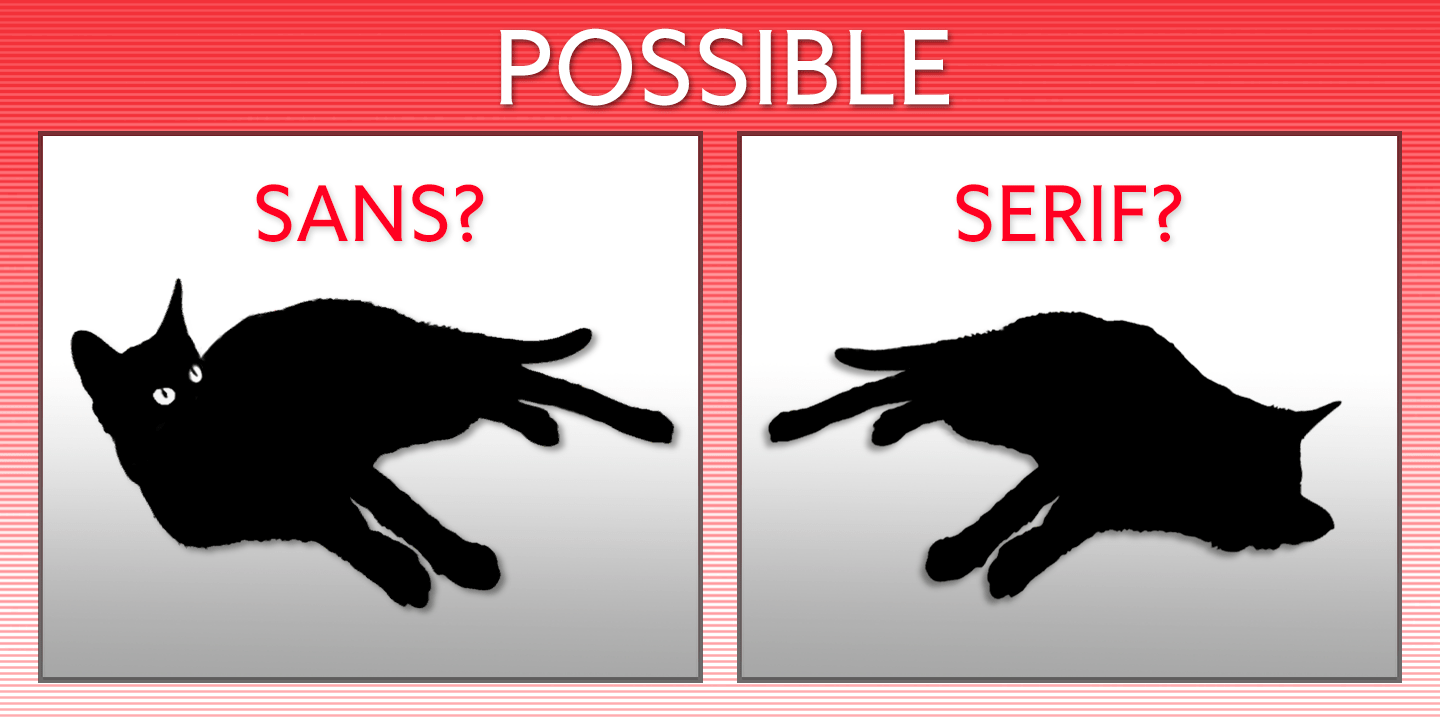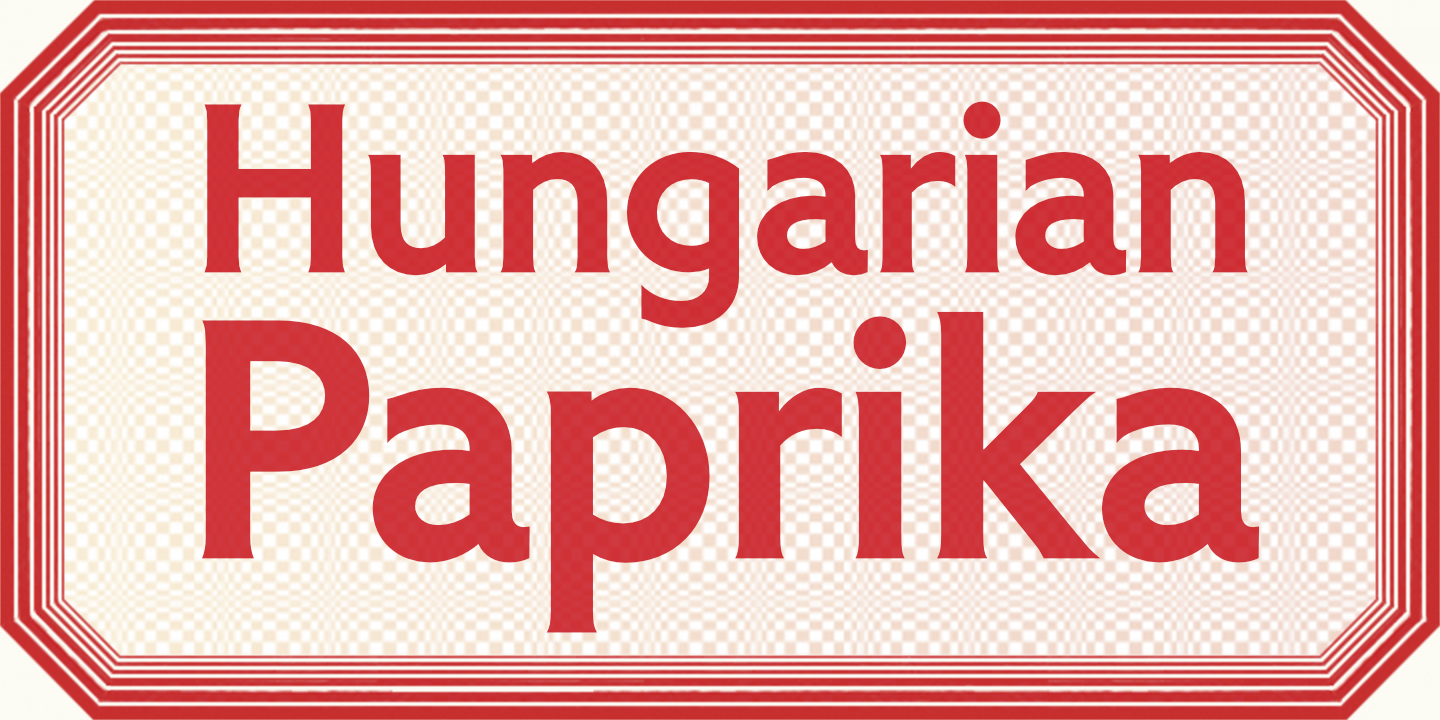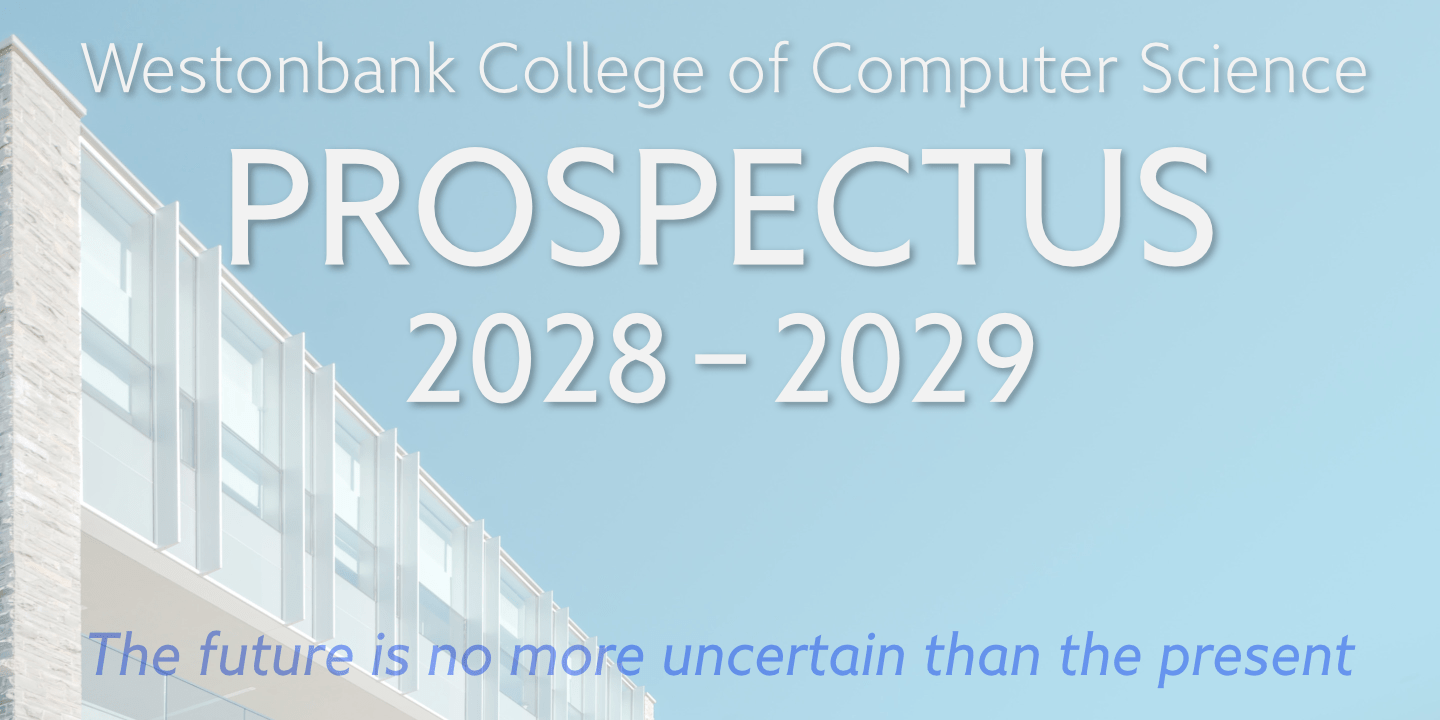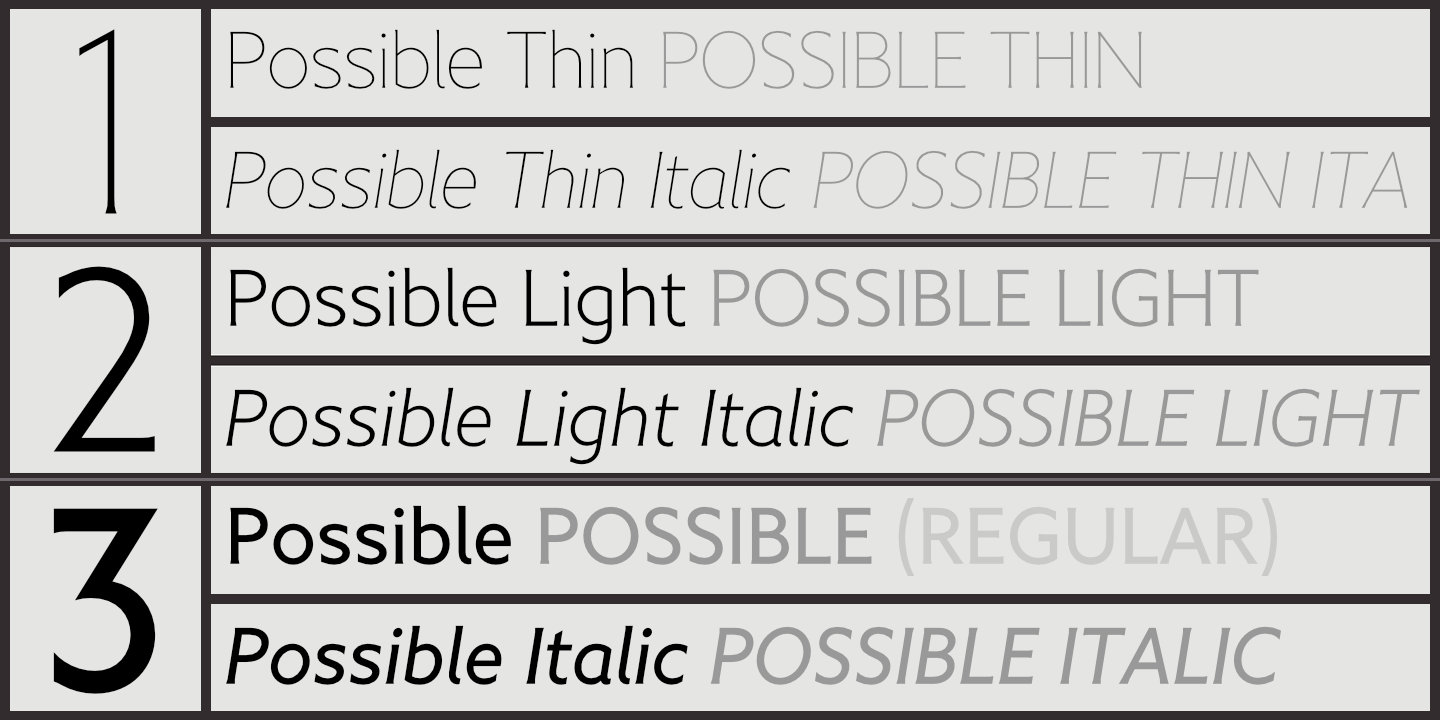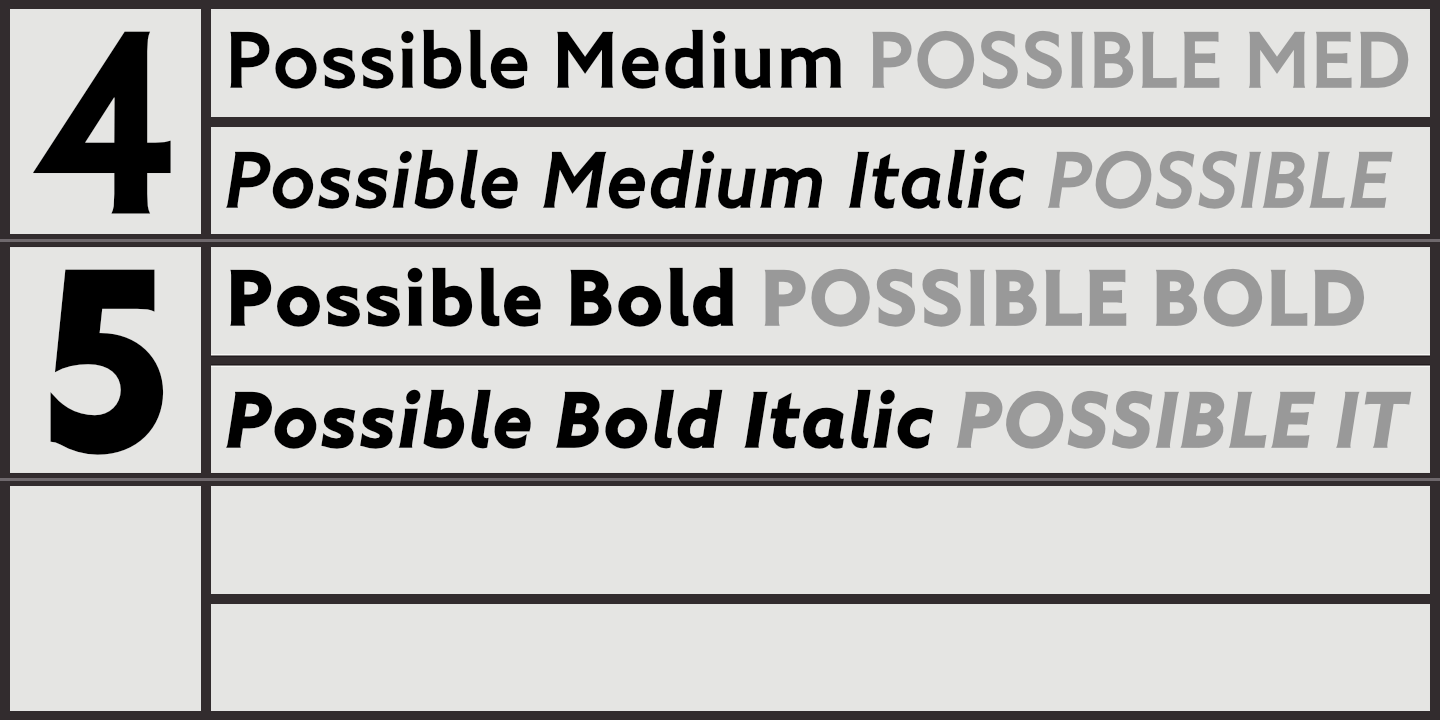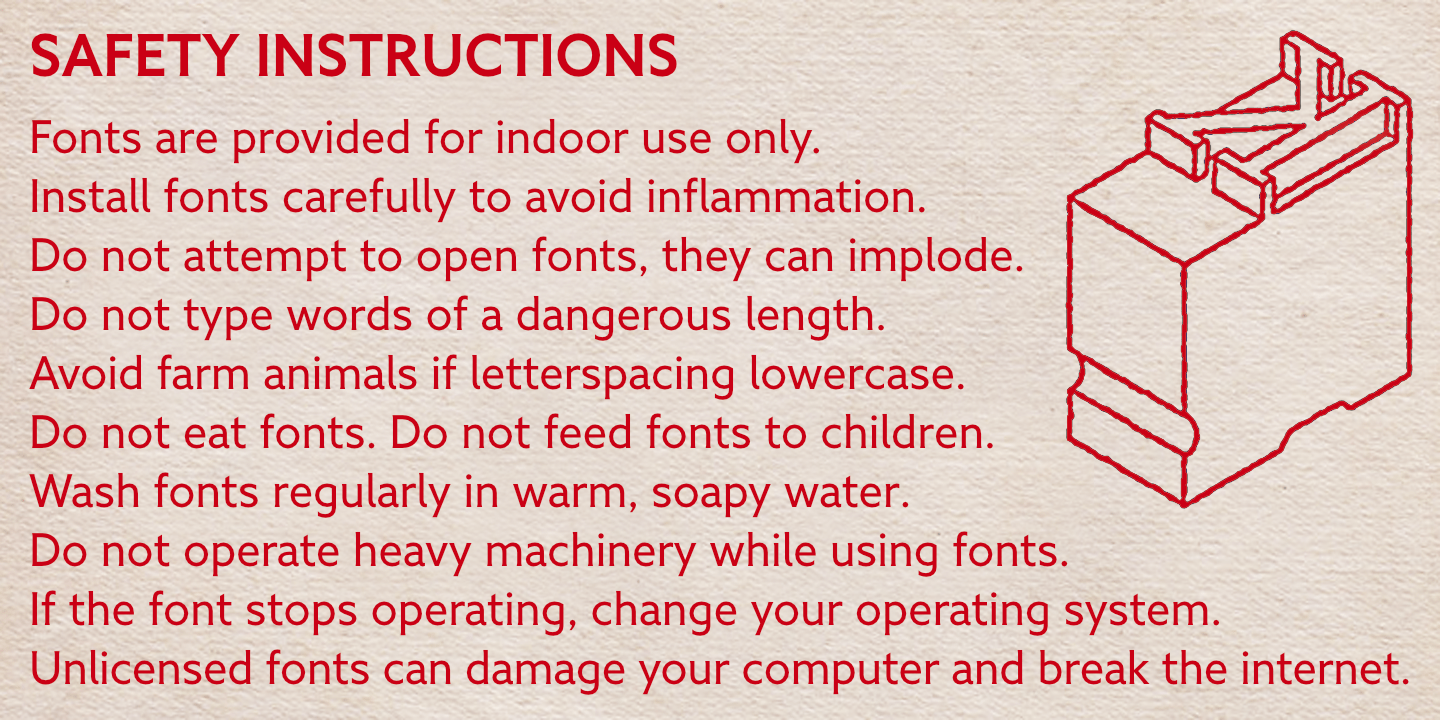
Possible
The Possible typeface is both sans and serif, either is possible. The typeface is a sans-serif impersonating a spur serif, or it's a glyphic with the look and feel of a sans.
This clean, contemporary typeface is inspired by Percy J Delf Smith's 'Petit Serif' from 1928, and similarly takes inspiration from Johnston's Underground, though more recent influences provide geometric and humanist elements that, together with the micro-serifs, improve clarity and legibility.
Spur serifs such as Petit Serif, Copperplate, and Liberty are often caps-only fonts, but Possible contains a lowercase, as well as a full Latin Extended-A character set.
Possible is available in five weights - Thin, Light, Regular, Medium, and Bold - each with a corresponding, optically-corrected italic.